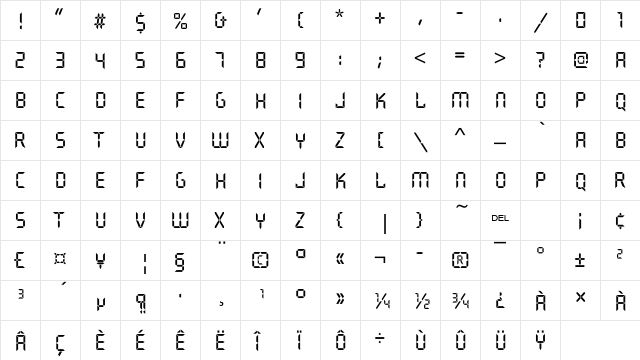
Digistyle Unicode Regular Font Preview
Digistyle Unicode Regular
Design Context for Digistyle Unicode Typeface
Digistyle Unicode brings the precise, column-aligned rhythm of monospaced typography to designs that value technical clarity and systematic order.
Well-suited to data-driven dashboards, coding tutorials, and any design that wants to reference the world of programming.